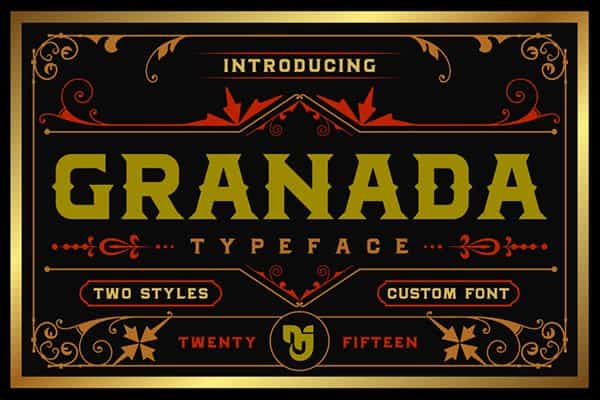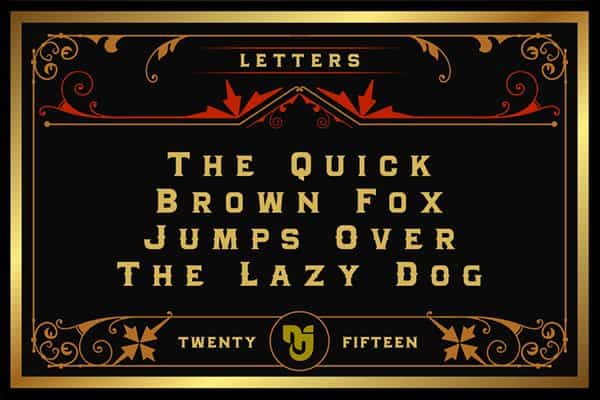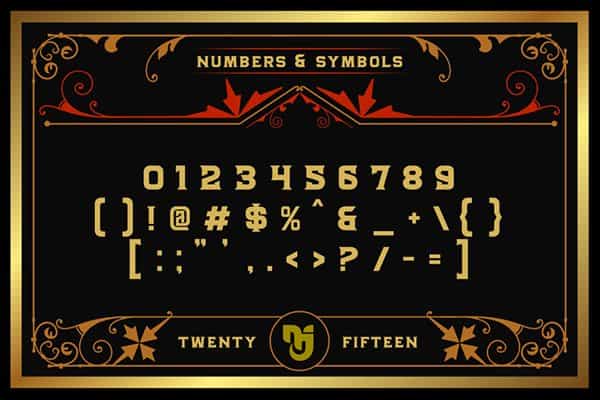
Granada font is an ideal solution for designs requiring an old style, classic and bold personalized font. Its letters feature wide strokes with punctuation marks and numbers.